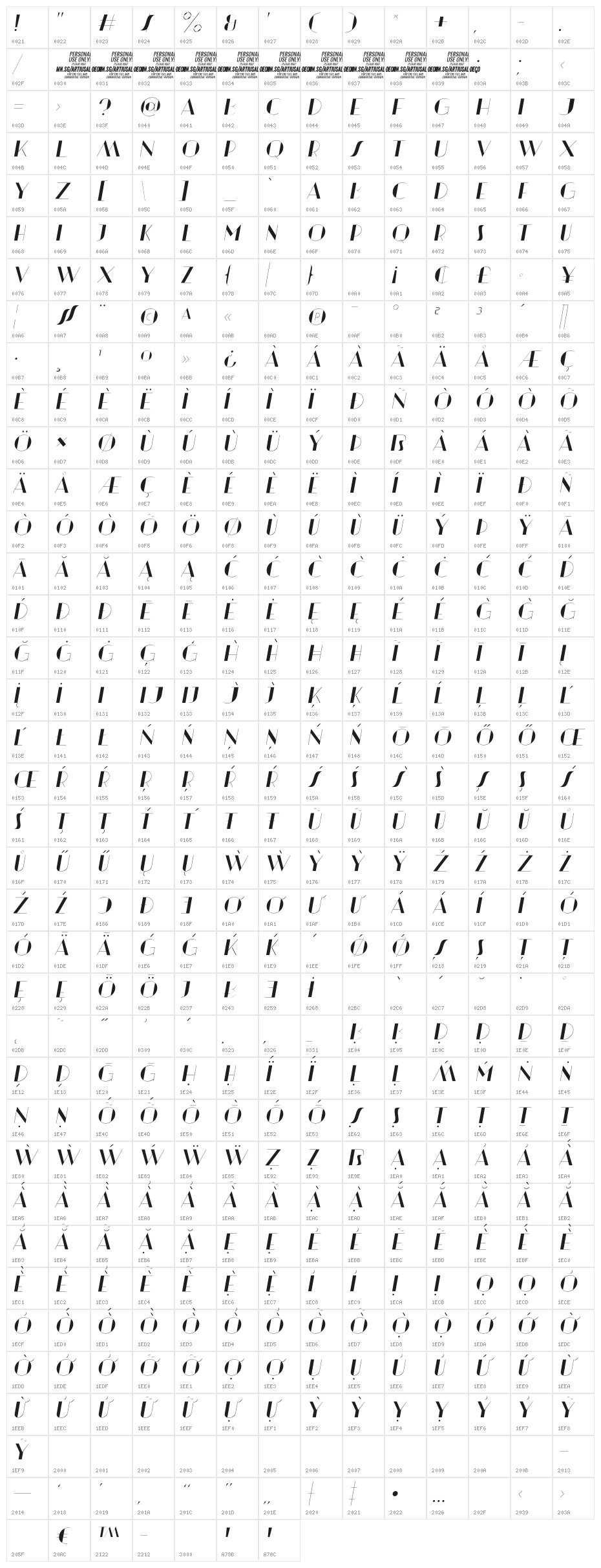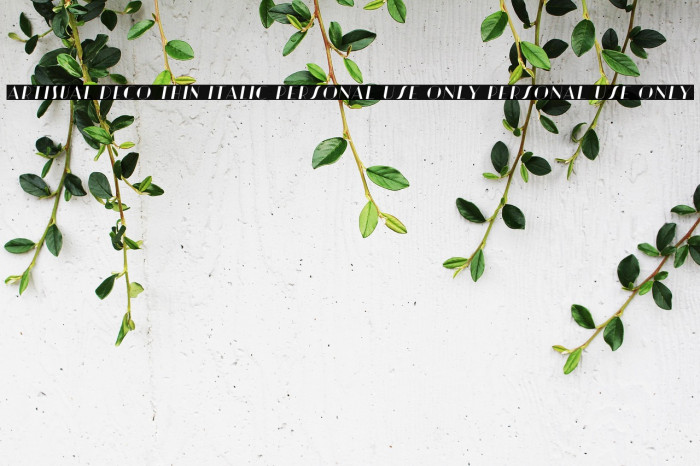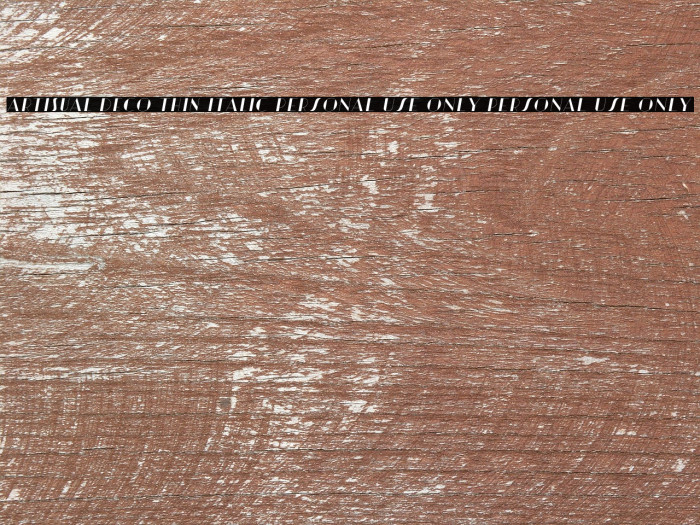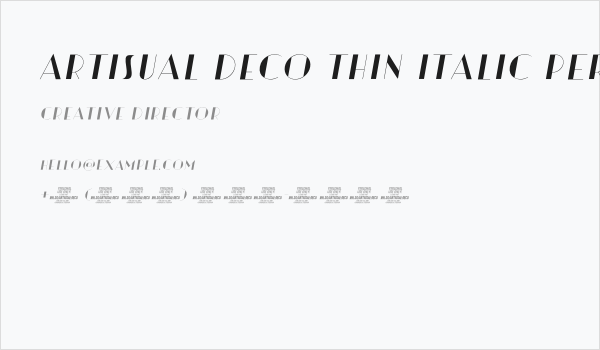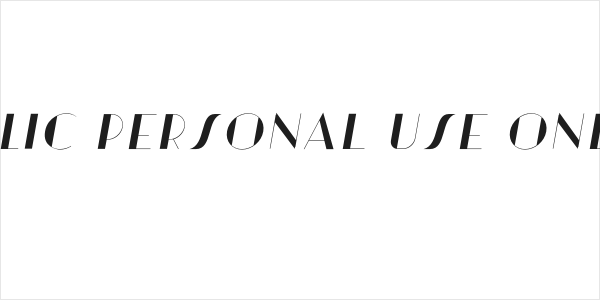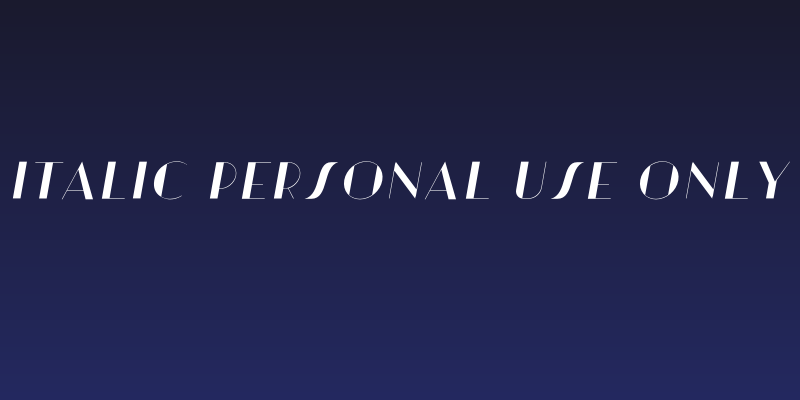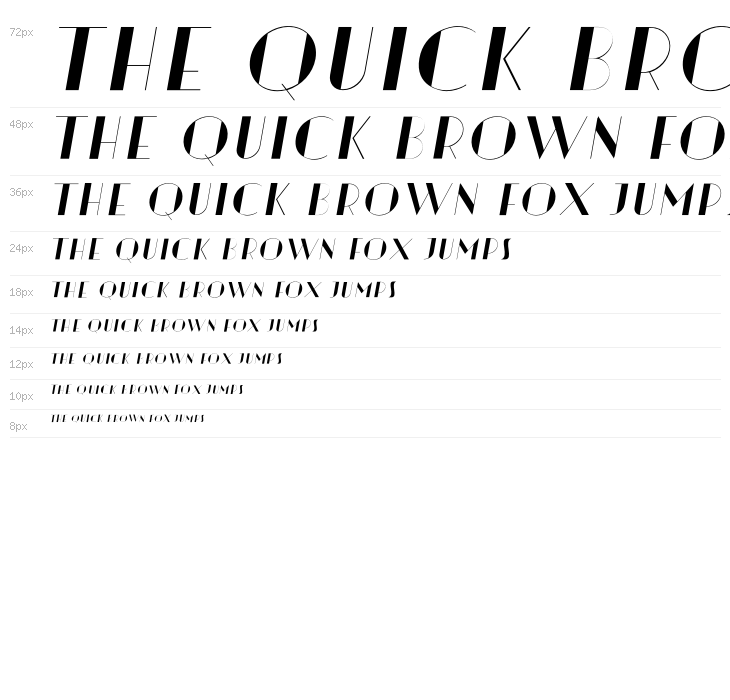
Artisual Deco Thin Italic PERSONAL USE ONLY Font
Artisual Deco Thin Italic PERSONAL USE ONLY Description
This typeface embodies a sleek and sophisticated Art Deco style, characterized by its thin, elongated letterforms and italicized slant. The font features sharp, angular lines with a distinct geometric influence, creating a sense of elegance and modernity. The uppercase and lowercase letters maintain a consistent style, with a noticeable contrast between thick and thin strokes, enhancing its visual appeal. The numerals and special characters are designed to complement the alphabet, maintaining the overall aesthetic. This font is ideal for projects that require a touch of vintage glamour and modern sophistication.
| Overall Style | Modern, Vintage |
| Use Case | Logos, Headlines |
| Proposed Projects | Ideal for luxury branding, wedding invitations, high-end product packaging, and editorial design. |